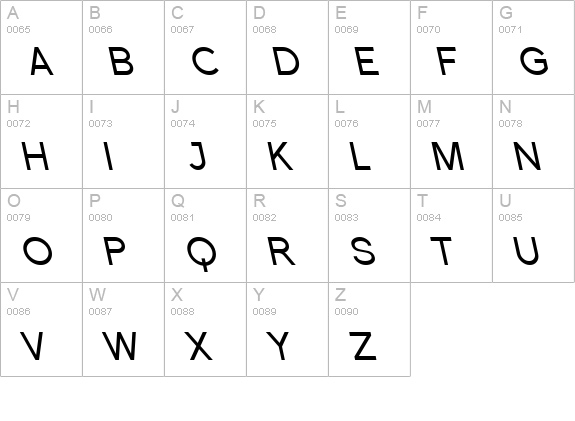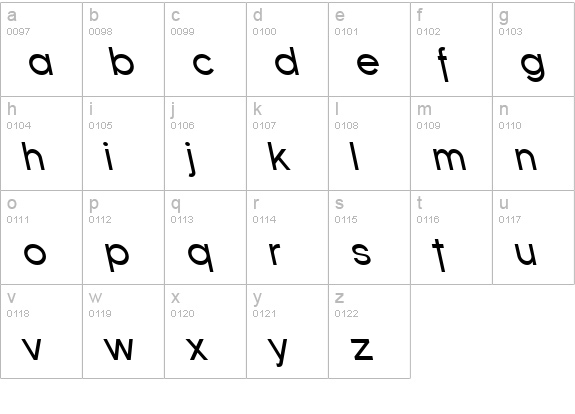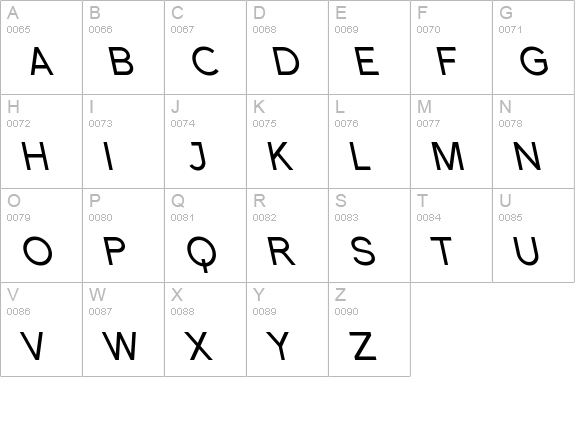
Florencesans Rev Italic is a distinctive, italic variant in the Florencesans typeface family \xE2\x80\x94 well suited to design and typography projects.
Florencesans Rev Italic font is a stunning and elegant typeface that exudes sophistication and modernity. Its sleek and stylish design makes it perfect for a wide range of creative projects, from branding to editorial design. The flowing italic style adds a touch of flair and personality to any text, making it stand out and capture attention. The best part about Florencesans Rev Italic font is that it is free to download at FontsMarket.com. This means that you can elevate your designs with this beautiful typeface without any extra cost. Whether you're a professional designer or a hobbyist looking to enhance your projects, Florencesans Rev Italic font is a versatile choice that will add a touch of class to any design. Download it today and see the difference it can make in your work!